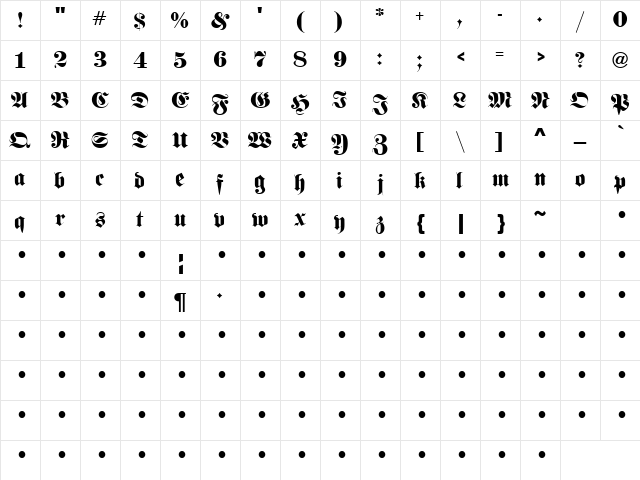
QTFraktur draws on the rich tradition of blackletter calligraphy, with dense, angular strokes that evoke medieval manuscripts and old-world craftsmanship.
Font Pairing: Pair with a clean neutral sans-serif for body copy to let QTFraktur's character lead without overwhelming the composition.
Pro Tip: Reserve QTFraktur for display and logo use - pair it with a clean sans-serif for body copy to prevent the composition from feeling oppressive.